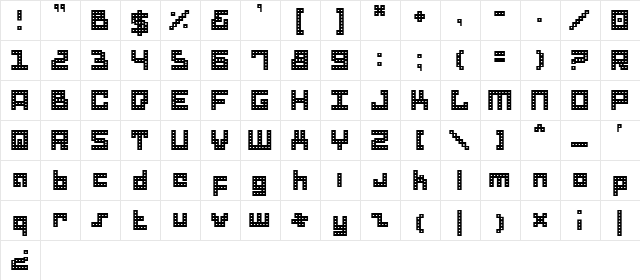
Drid Herder Regular Font Preview
Drid Herder Regular
Drid Herder Regular Font Details
Design Context for Drid Herder Typeface
Drid Herder is a composed and adaptable typeface that performs quietly and consistently across a wide range of design contexts.